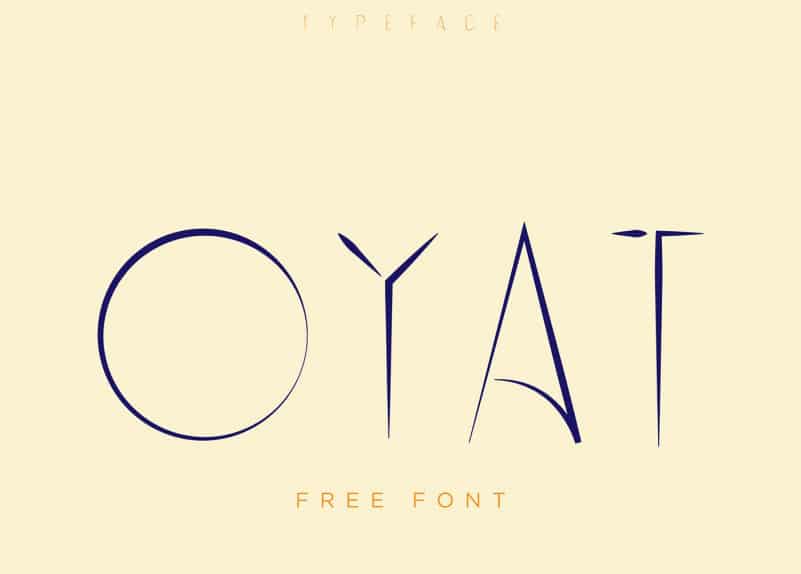
Oyat Display Font
Oyat Display Font is a very soft serif typeface that adds a touch of curvature to certain letters to reflect the feminine value of the shape. It’s designed and shared by Johann Darcel Studio. This collection is perfect for branding projects, home-ware designs, product packaging, magazine headers – or simply as a stylish text overlay to any background image.